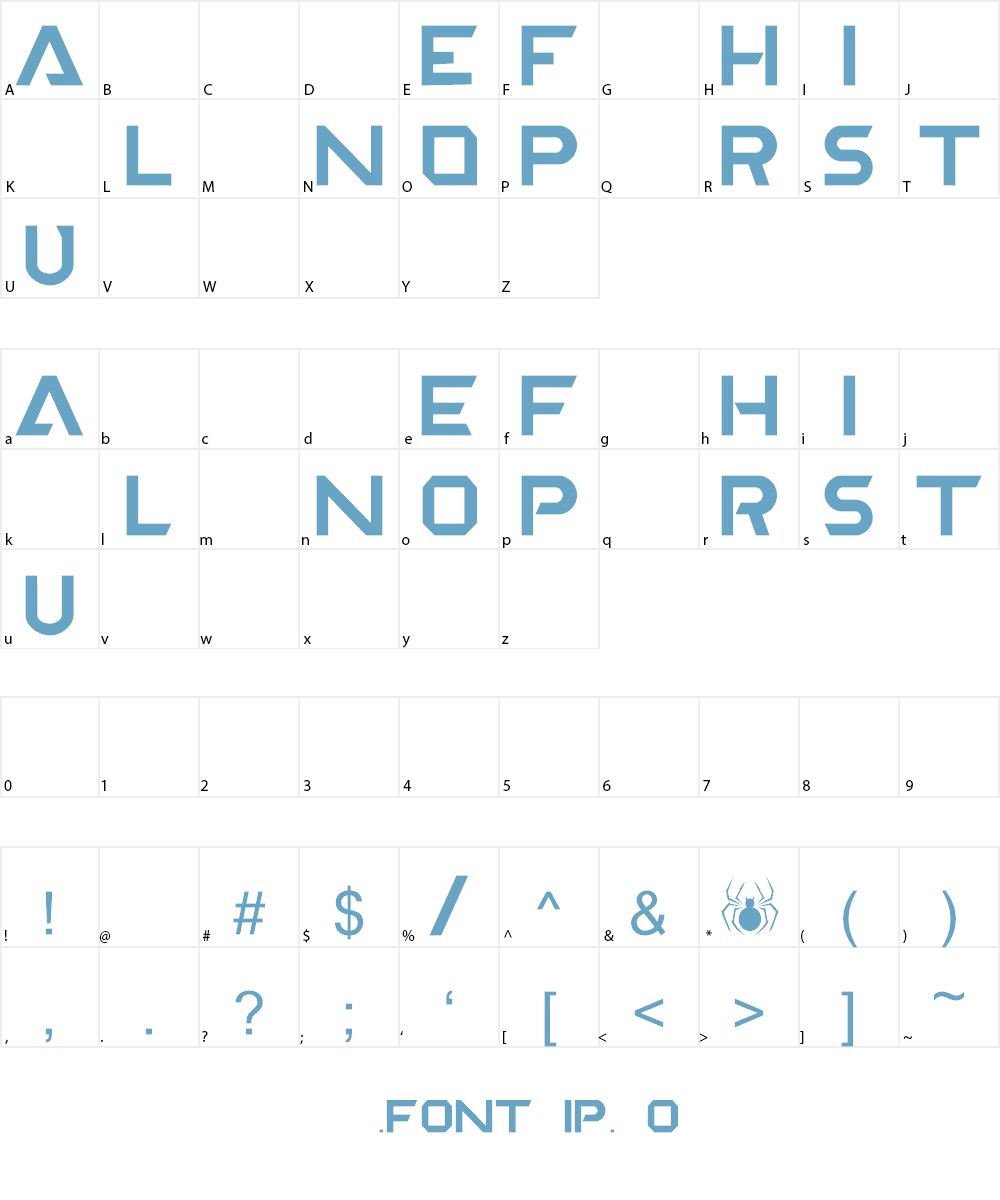
I created this typeface based on the FPS shooter game where players control pilots and their mech-style robots in an outer world frontier. Robots and Outer space are two things that my son is totally addicted to. The typeface It has similar wide arms with low crossbars the collars counter and serifs are angular.